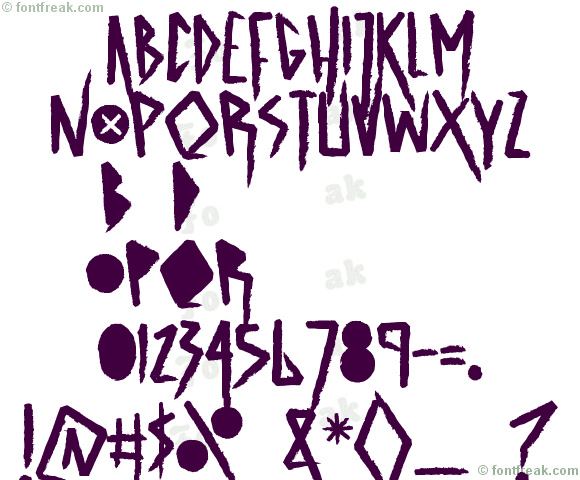
ASTRODRAMATIC
About ASTRODRAMATIC
Introducing the ASTRODRAMATIC font by Gyom Seguin, a striking display typeface that captures attention with its unique and bold aesthetic. This font falls within the display category, characterized by its eye-catching, artistic design. Its irregular, jagged strokes convey an edgy vibe, making it perfect for projects that require a dramatic flair. The stroke weight varies throughout, creating a dynamic contrast that enhances its visual impact. The spacing is tight yet deliberate, adding to the font's overall intensity without compromising legibility.
The ASTRODRAMATIC font is ideal for a variety of creative applications. Its bold design makes it a fantastic choice for movie posters, where a striking title can draw viewers in. Additionally, it can be used effectively in music festival promotions, adding an energetic vibe to flyers and banners. Graphic designers will appreciate its utility in creating eye-catching album covers or merchandise for bands. Small business owners can also leverage this font for unique branding materials that stand out in a crowded market, such as packaging or signage. Content creators looking to add a dramatic touch to their social media graphics will find ASTRODRAMATIC a valuable asset.
Targeting graphic designers, small business owners, and content creators, this font offers versatility and personality. The ASTRODRAMATIC font free download provides an opportunity for creatives to infuse their projects with a sense of urgency and excitement. Its distinctive style not only captures attention but also resonates with audiences, making it a memorable choice. With its unique characteristics and versatile applications, the ASTRODRAMATIC font by Gyom Seguin stands out as an essential addition to any designer's toolkit.